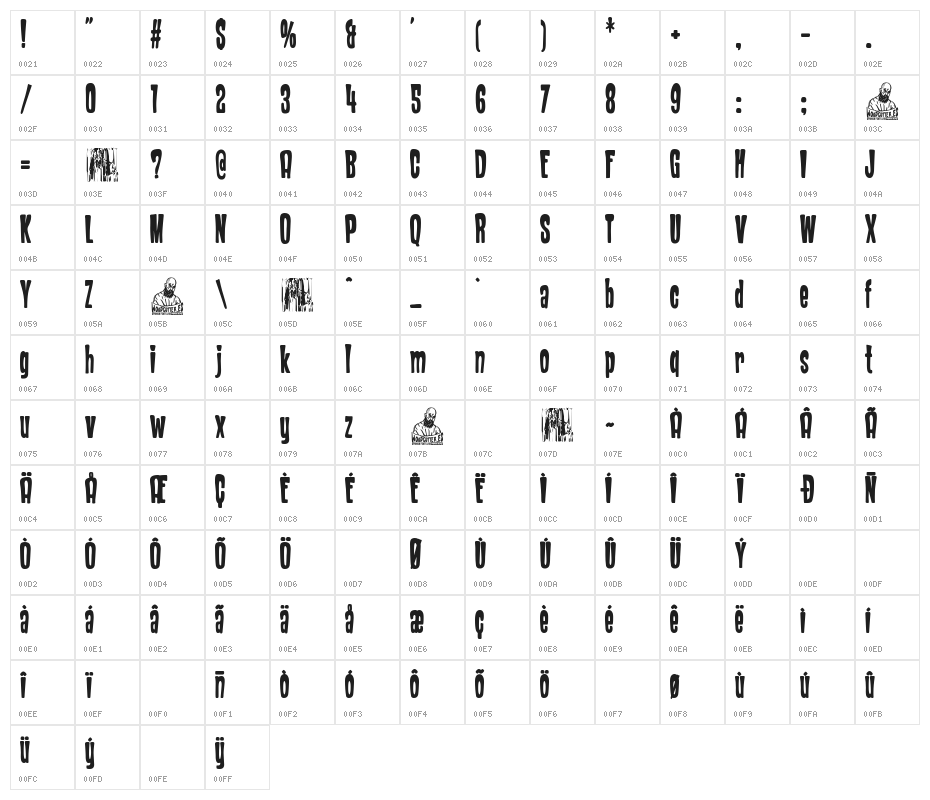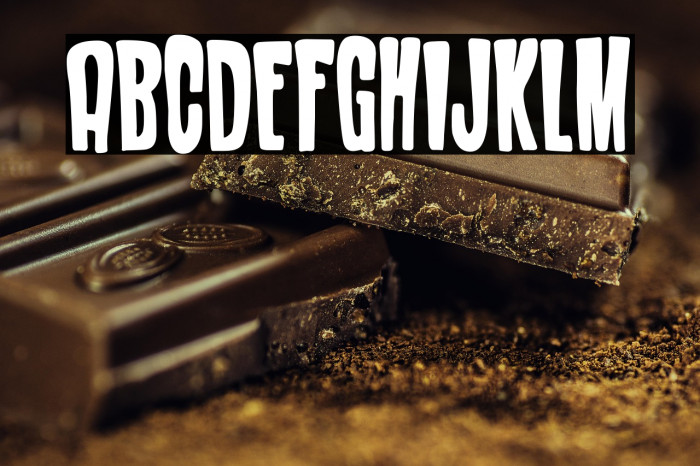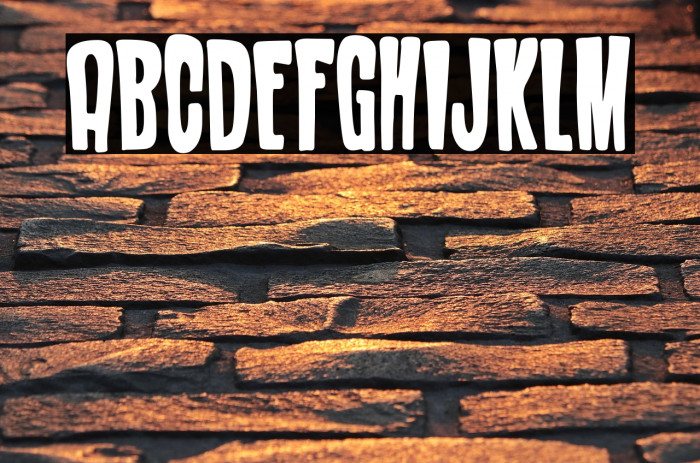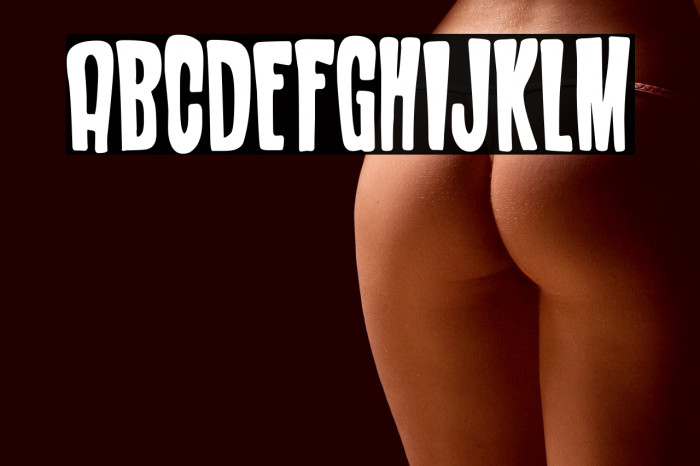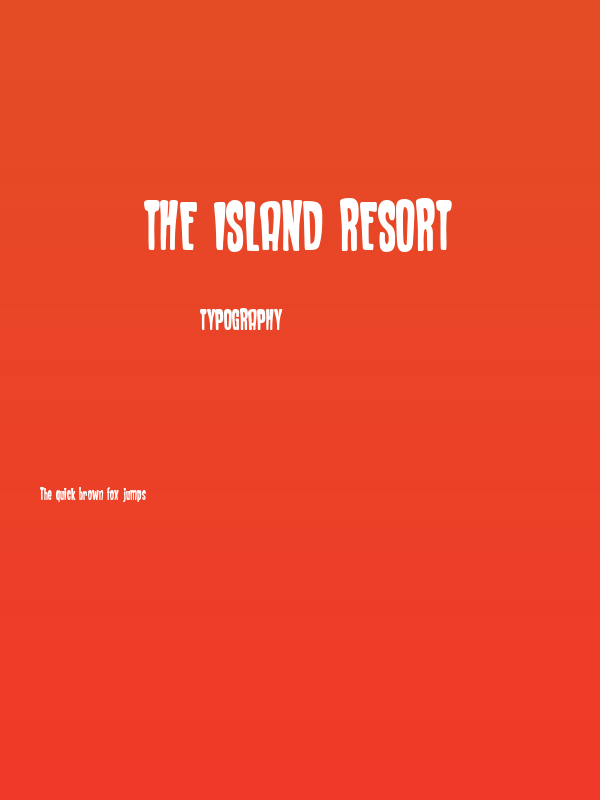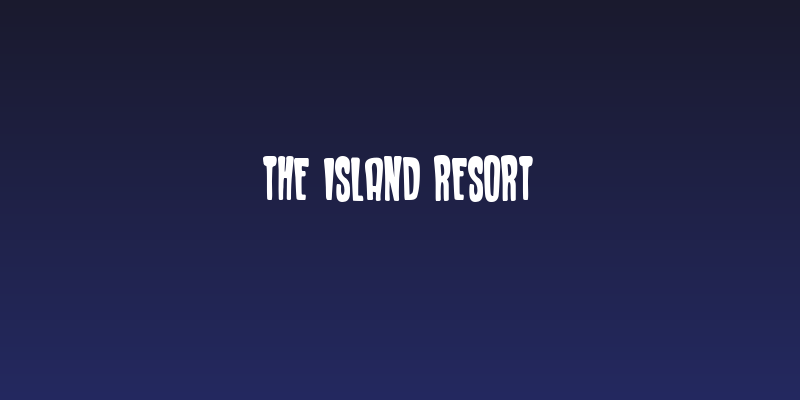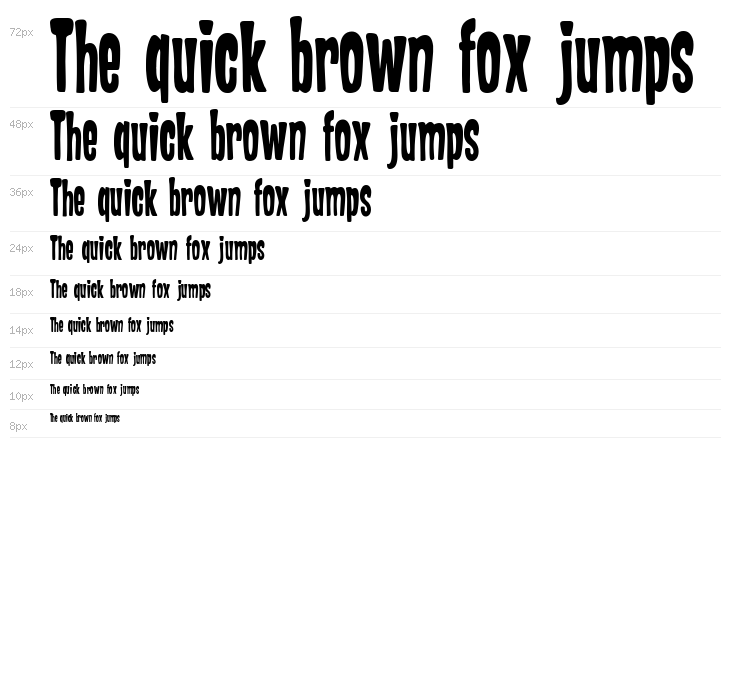
The Island Resort Font
The Island Resort Description
This font features a playful and bold design with a slightly irregular, hand-drawn appearance. The characters are thick and rounded, giving a friendly and approachable vibe. The uppercase and lowercase letters maintain a consistent style, with the lowercase being slightly more condensed. The numerals and special characters follow the same bold and whimsical design, making them easily readable. This font's unique style is perfect for projects that require a touch of fun and creativity.
| Proposed Projects | Ideal for children's books, playful branding, event posters, and creative packaging. |